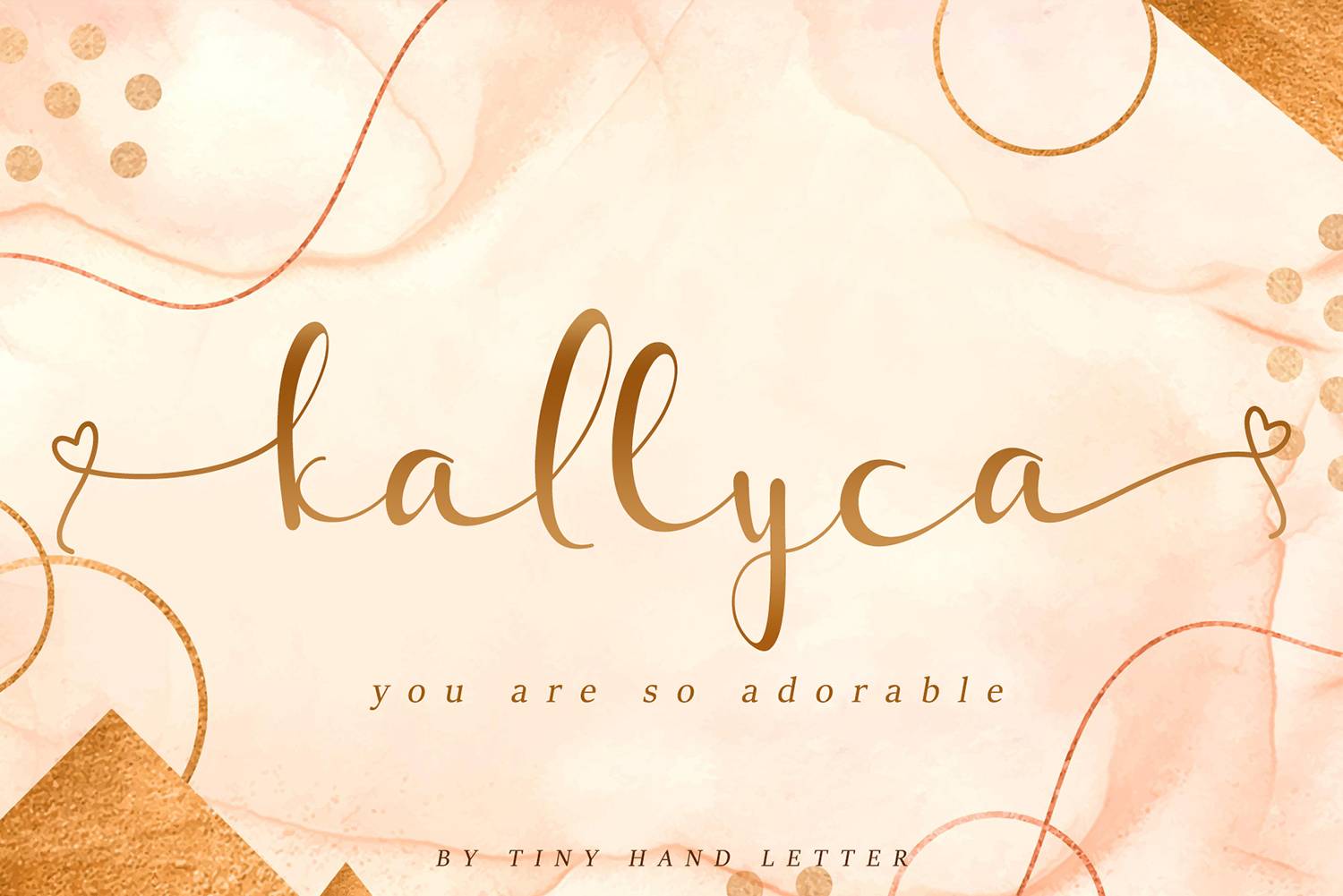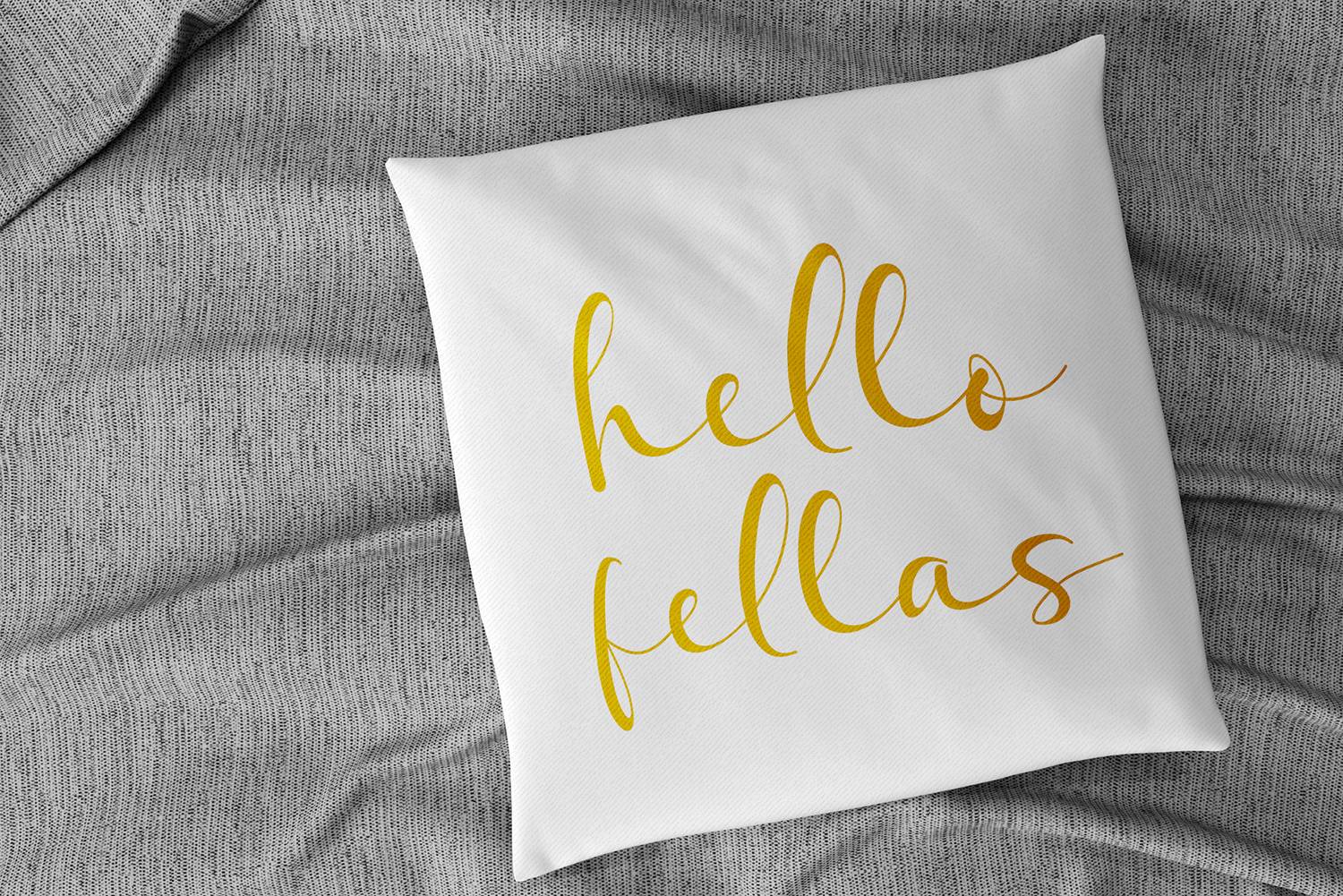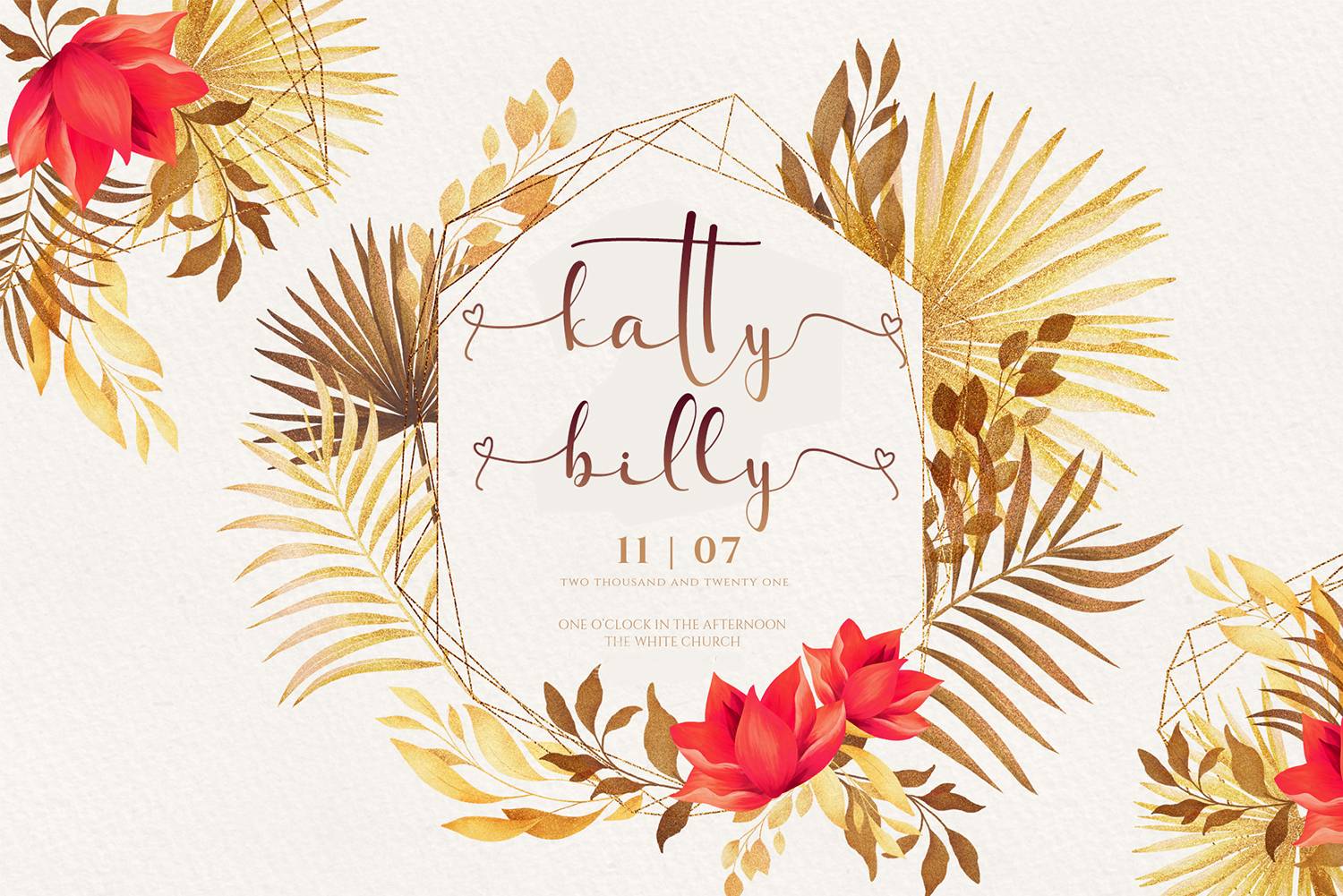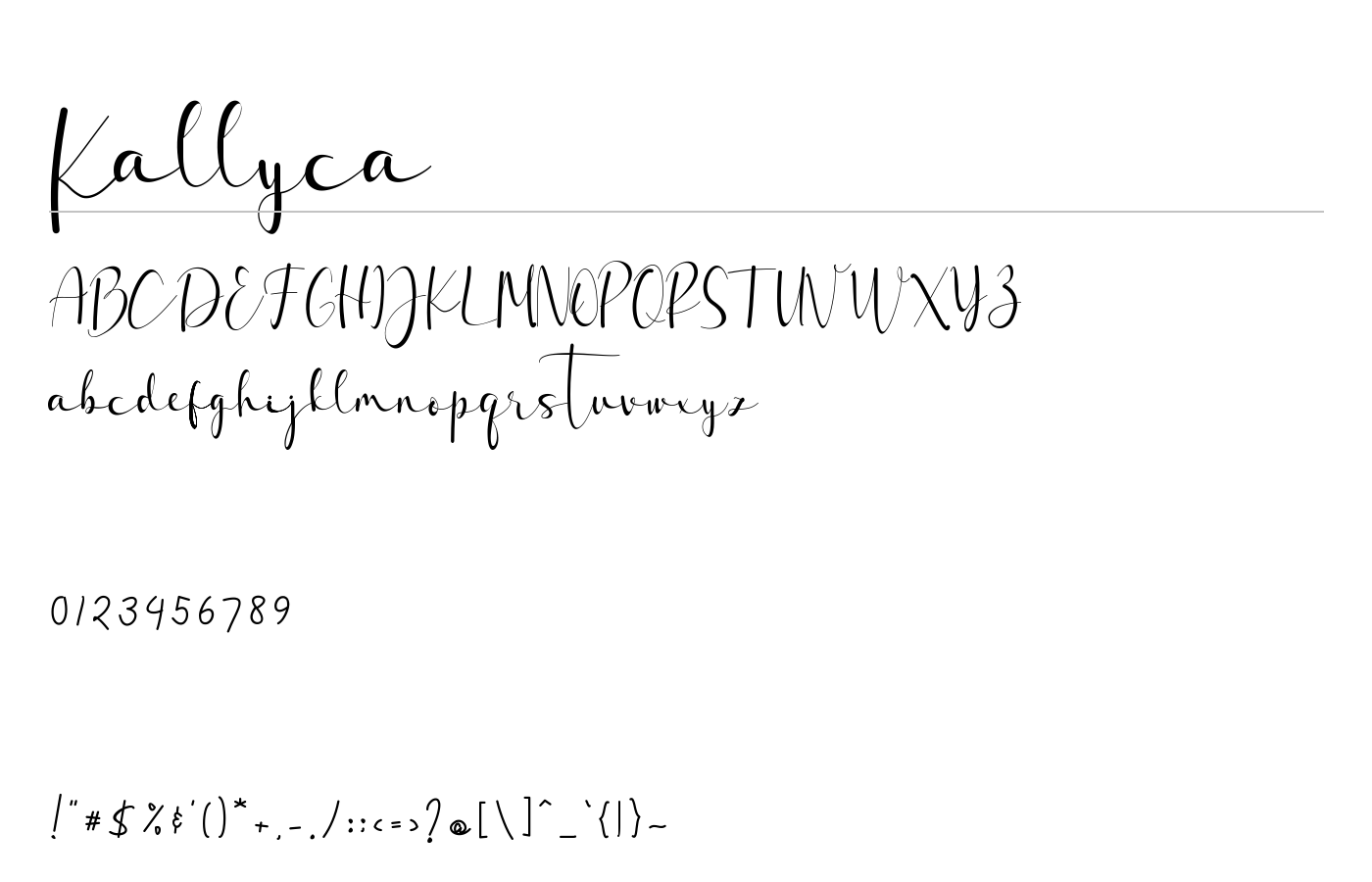
Kallyca is a delicate and elegant script font with a thin, flowing stroke that mimics natural handwriting, giving it a charming and personal feel. Its stylish, slightly irregular letterforms work beautifully for invitations, branding, and feminine designs, adding a touch of sophistication and warmth. This font is perfect for projects that need a graceful, creative, and approachable look.
| Font family | Kallyca Font |
| Designer | Tiny Hand Letter 2020 |